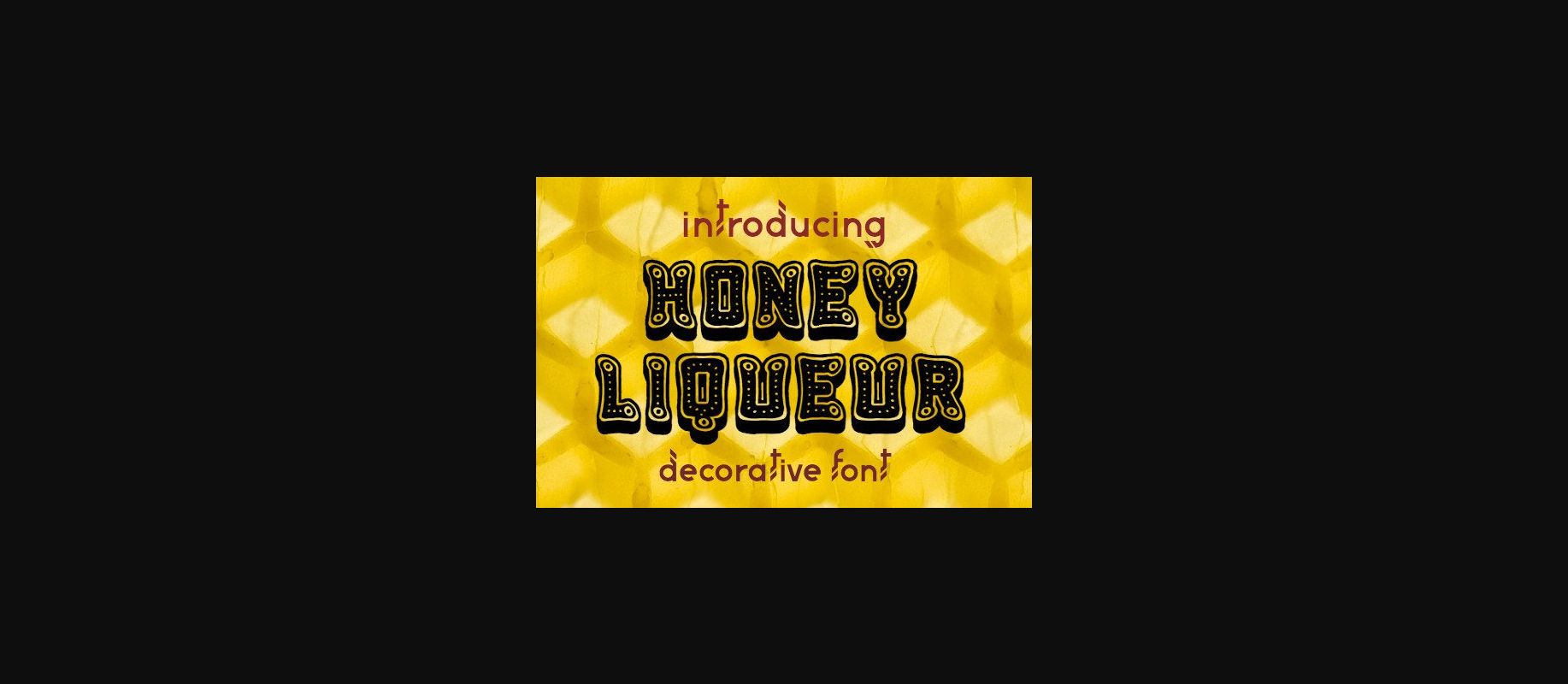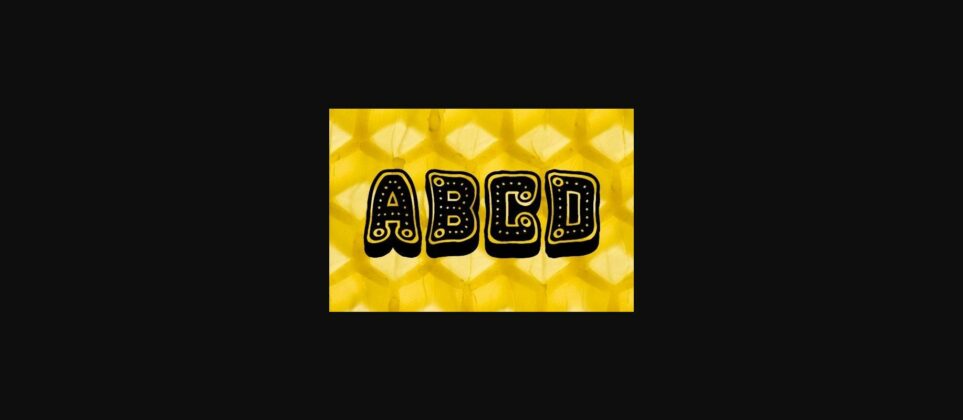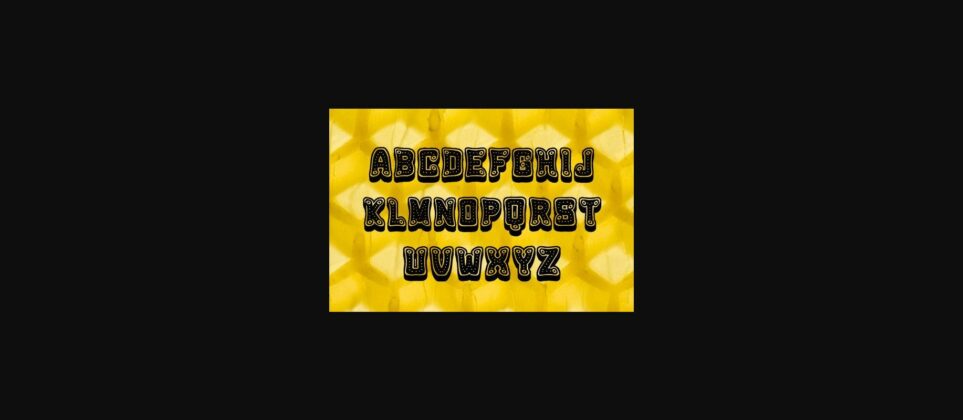
About Honey Liqueur Font
Honey Liqueur is a stylish decorative font with round edges that will fit a large variety of projects. This typeface will enhance your craft with little effort, making your product stand out from the competition.